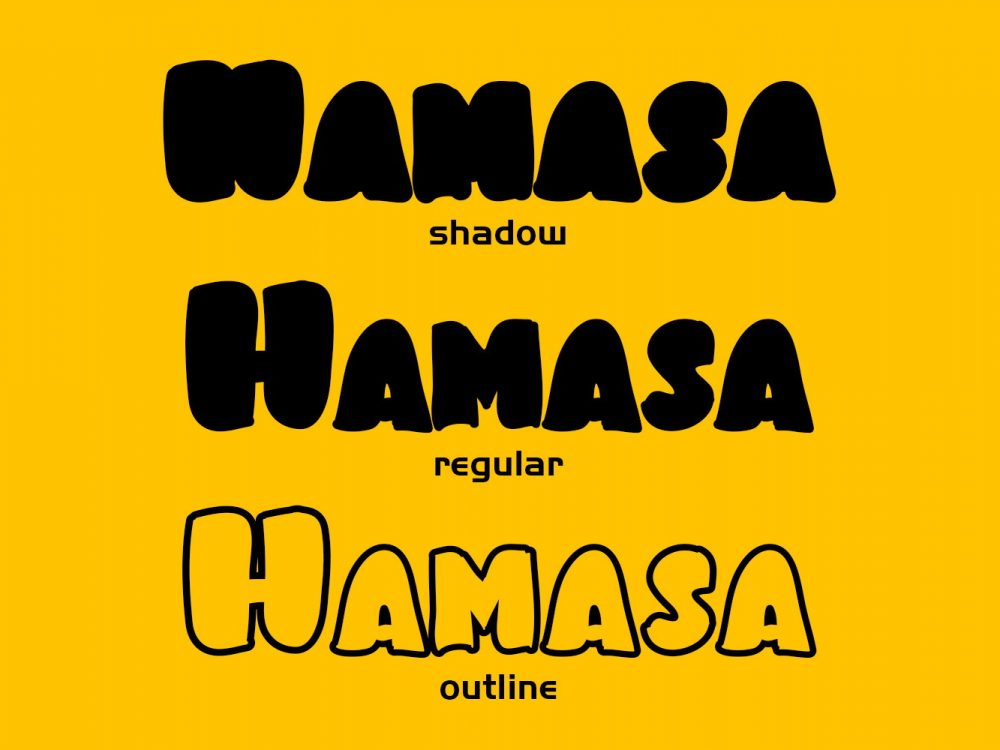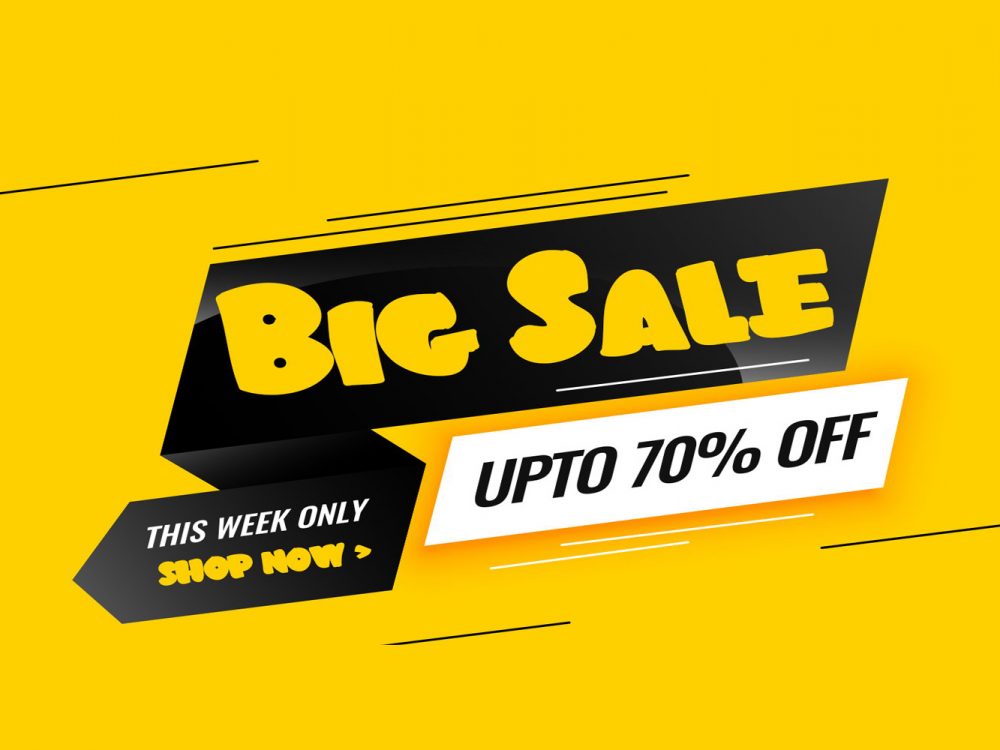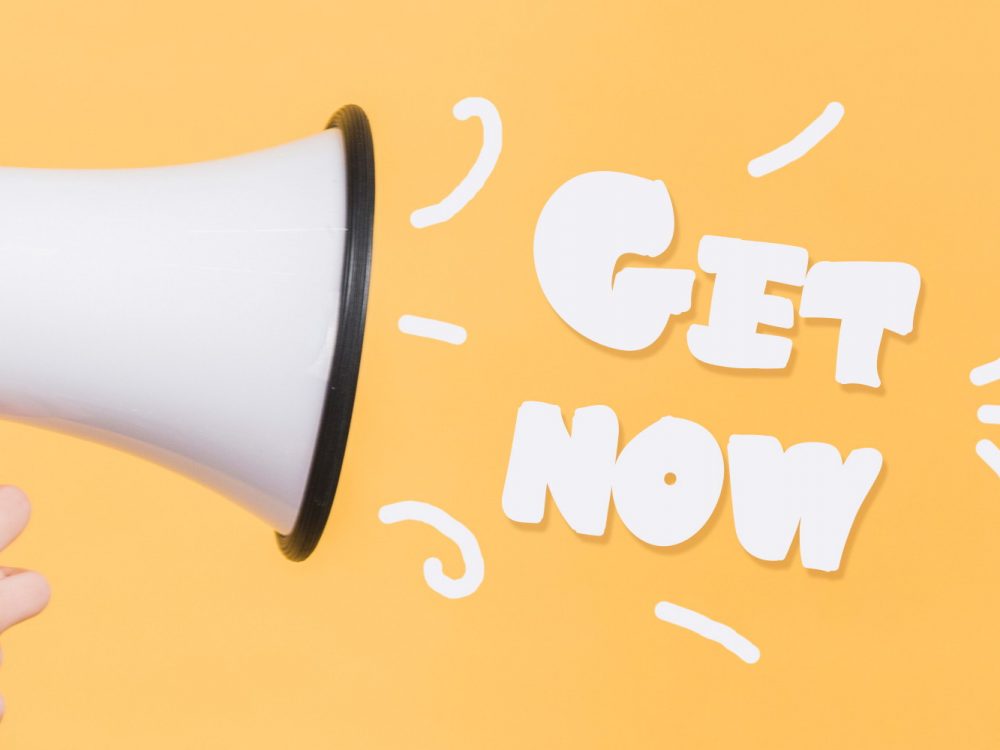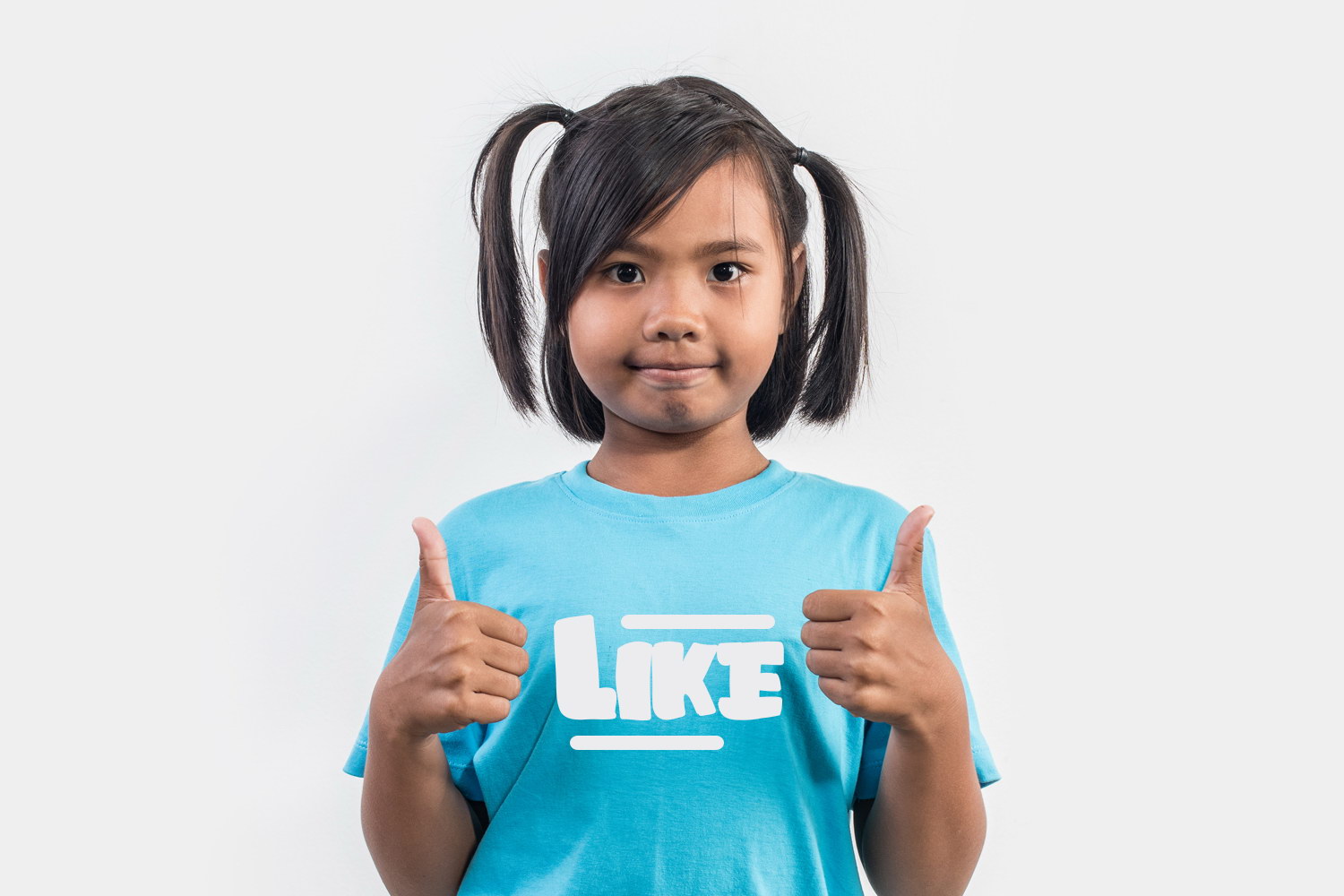
Hamasa Font
Bouncy Font
Hamasa Font is an interesting handwritten font that comes in three styles and features bold, childish lines. This font is very well suited for creating various design projects, including for comics. Use this font to create posters, cards, postcards, branding, flyers, prints, and more. If you want to use it commercially, you will have to purchase the full version.